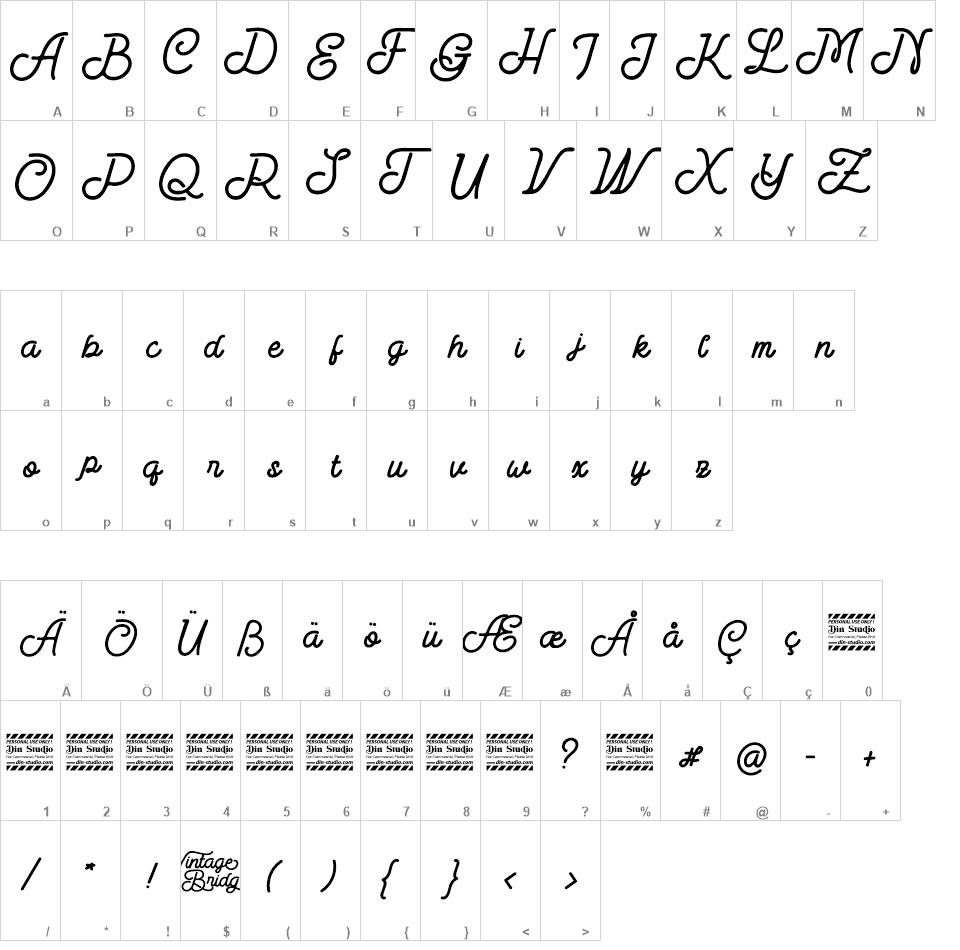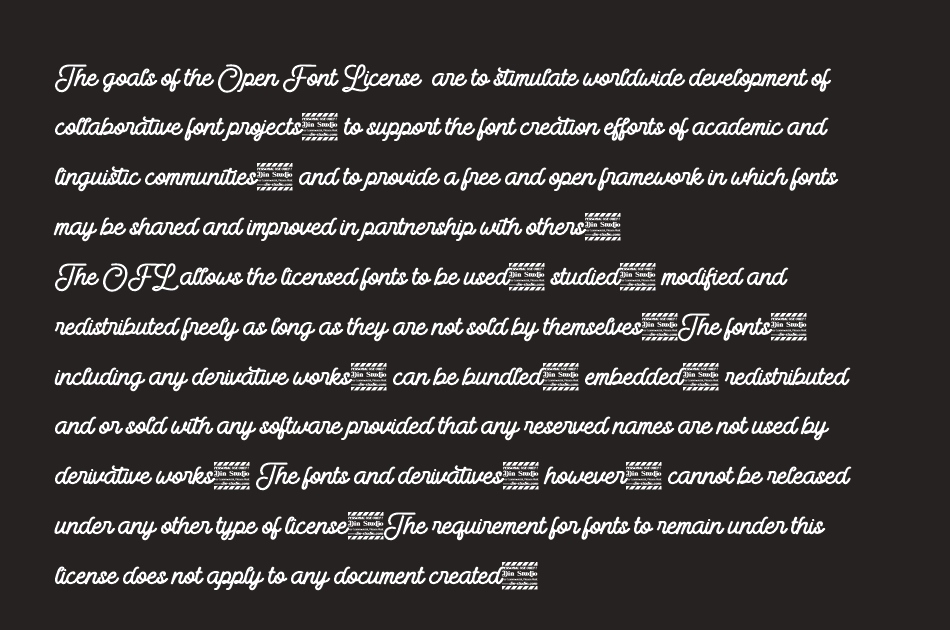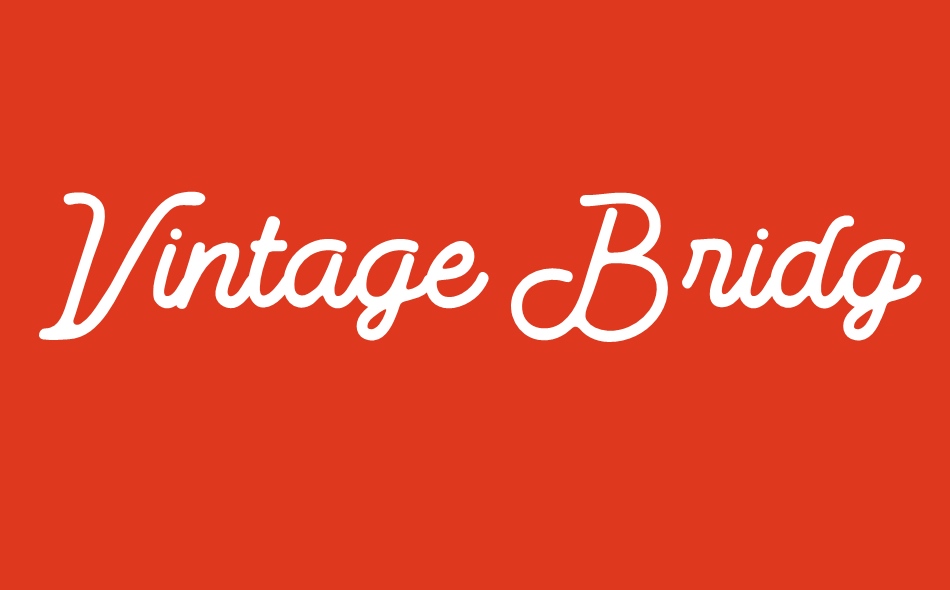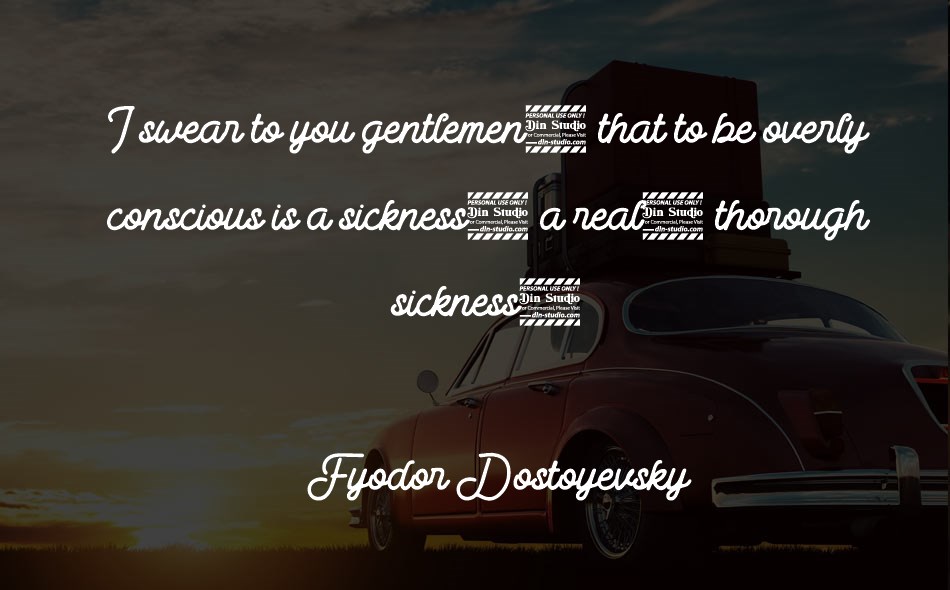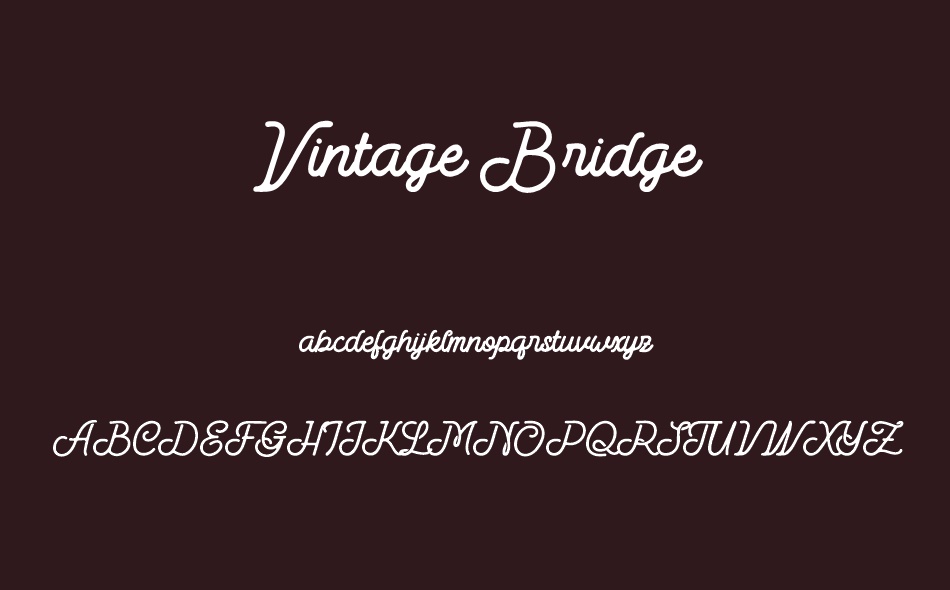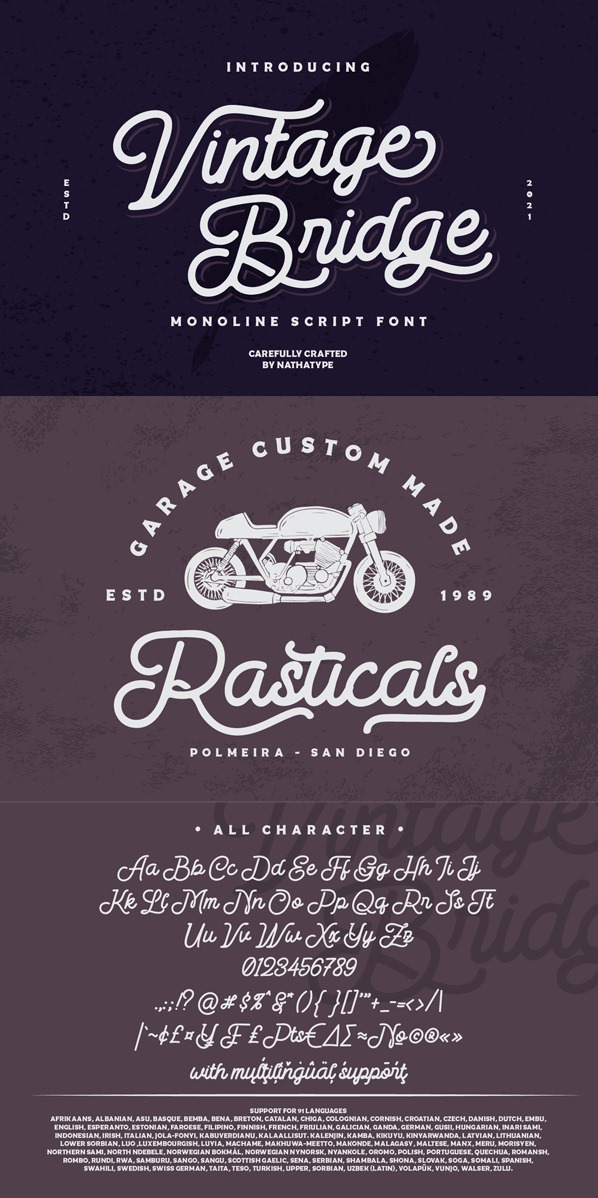
Vintage Bridge font
Vintage Bridge is a gorgeous script font that will whisk you away to a place of style! We are hoping that through this elegance and passion edged font, you can maximize your designs, reign in sales or make lasting impressions.